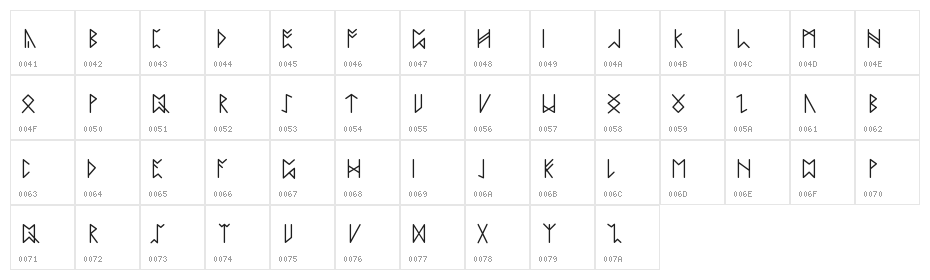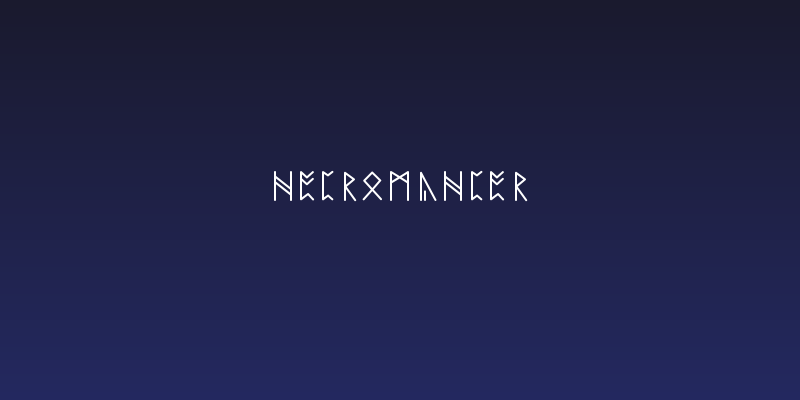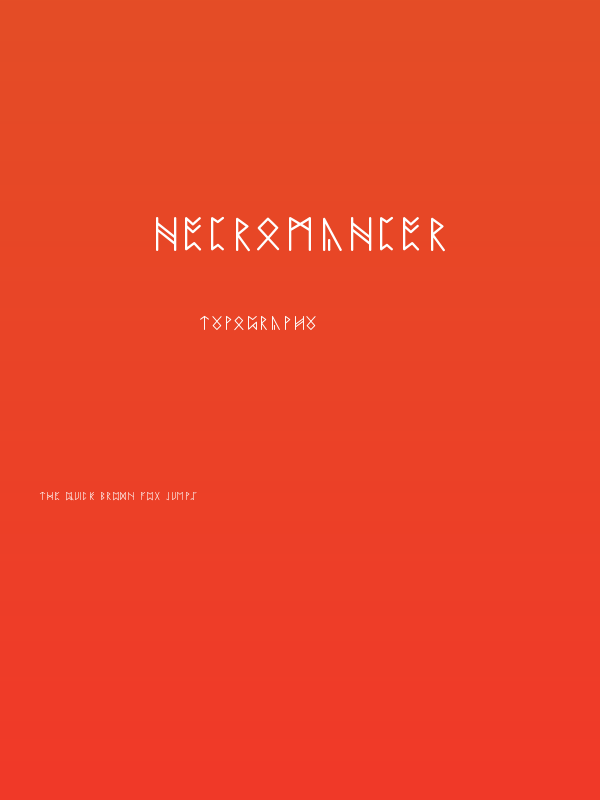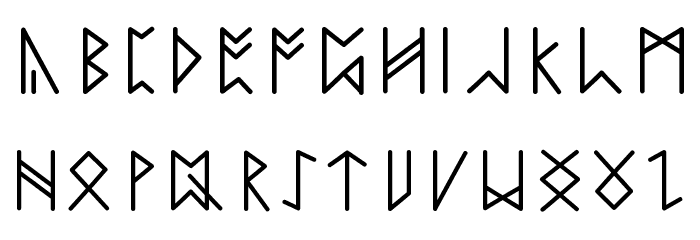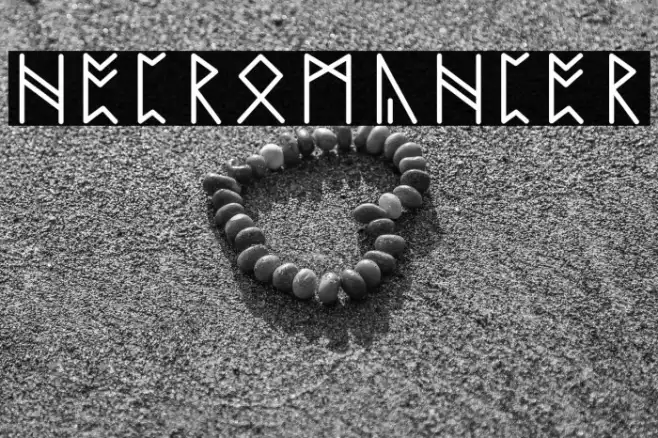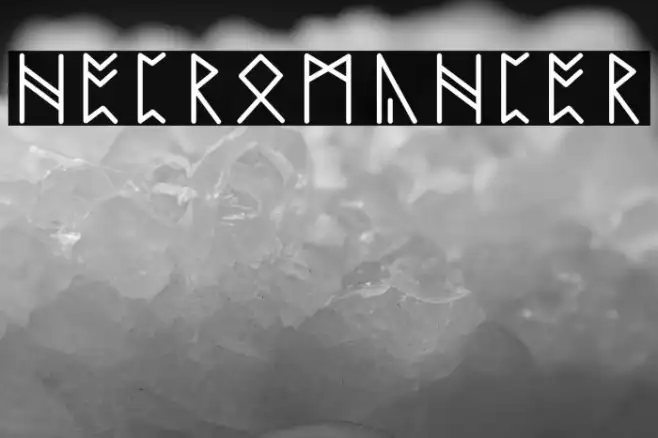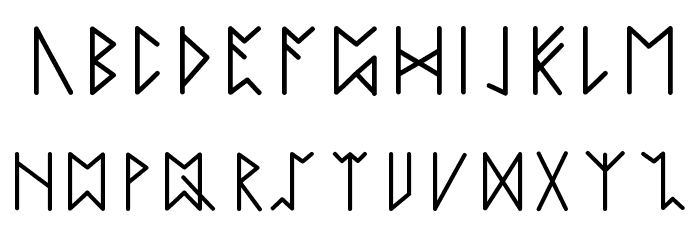
NECROMANCER Font
NECROMANCER Description
This font features a unique, angular design reminiscent of ancient runic alphabets. Each character is constructed with straight lines and sharp angles, giving it a mystical and archaic appearance. The uppercase and lowercase letters share a similar geometric style, creating a cohesive look across the alphabet. The numbers and special characters maintain this theme, ensuring consistency throughout. The font's distinct style makes it ideal for projects that require a touch of fantasy or historical intrigue.
| Use Case | Logos, Headlines, Themed Events |
| Proposed Projects | Perfect for fantasy-themed designs, historical reenactments, game titles, or book covers that require an ancient or mystical aesthetic. |